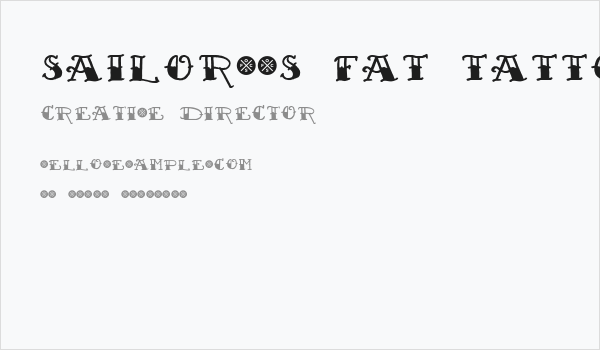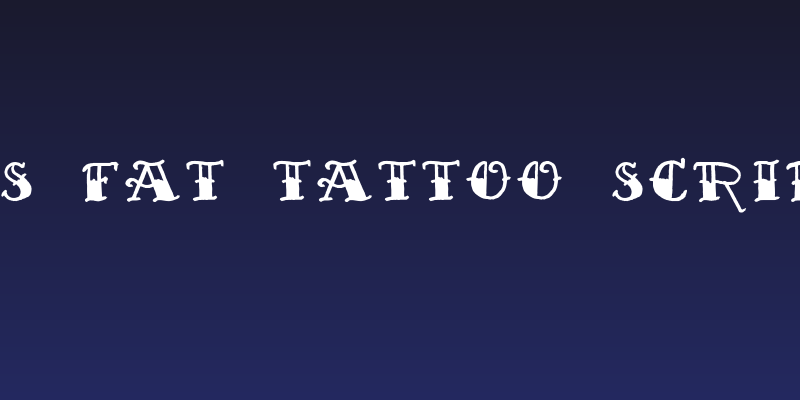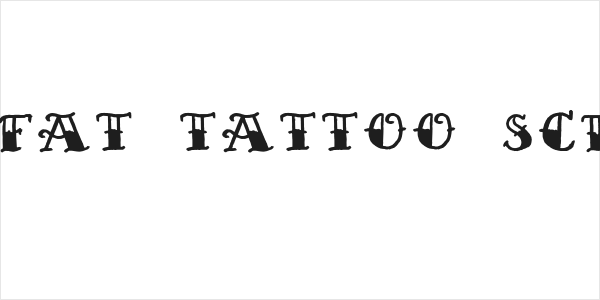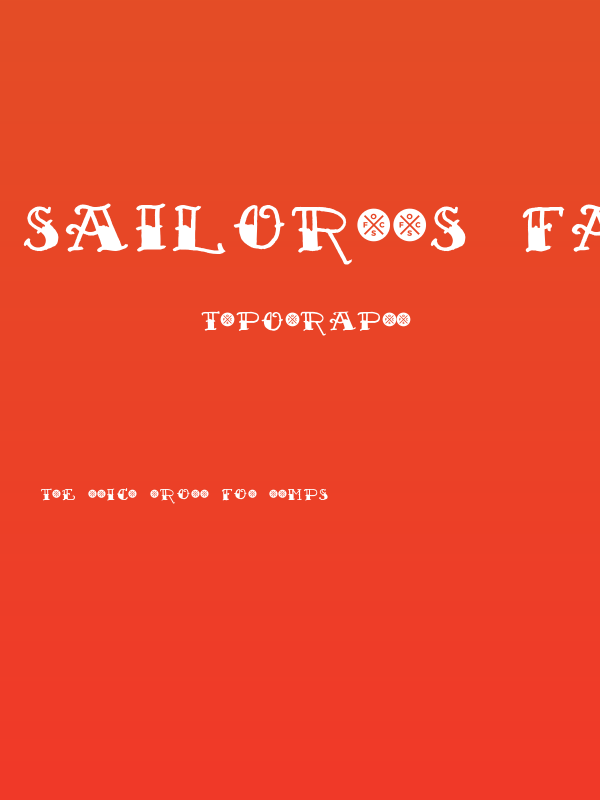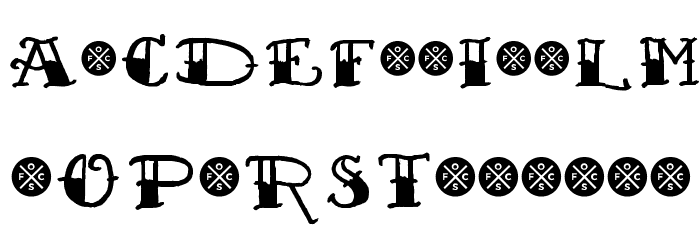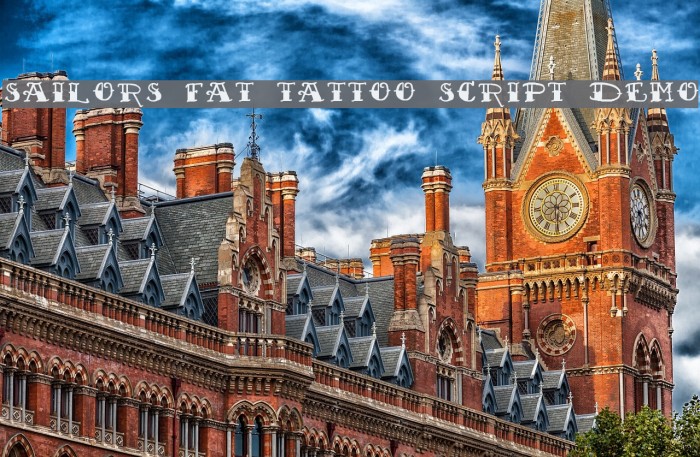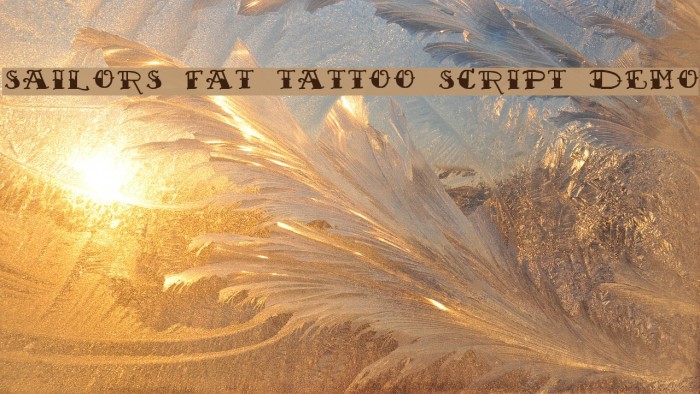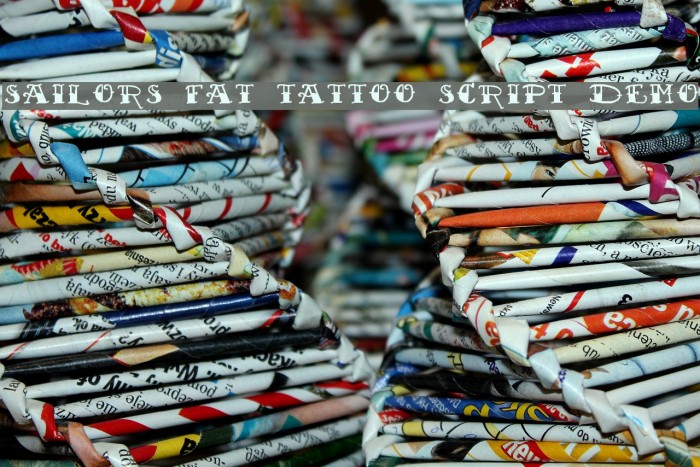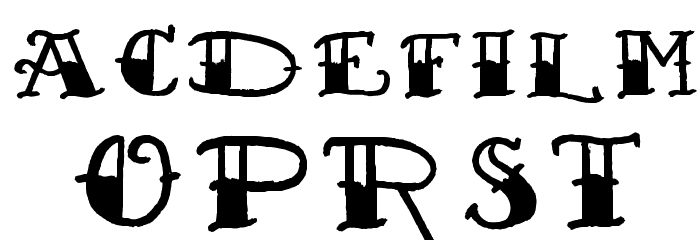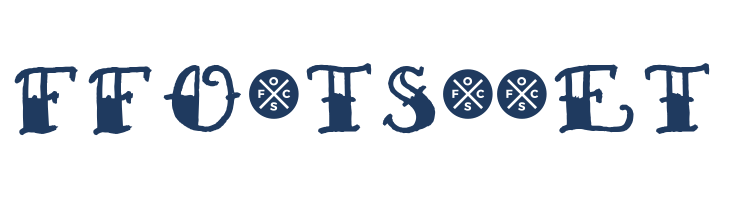
Sailor's Fat Tattoo Script Demo Font
This font features a bold and decorative style with a distinct vintage tattoo aesthetic. The characters are embellished with unique flourishes and intricate details, reminiscent of traditional sailor tattoos. The uppercase letters are particularly ornate, with some characters incorporating anchor-like elements and curved strokes. The overall appearance is striking and eye-catching, making it suitable for designs that require a strong visual impact. The font's decorative nature lends itself well to creative and artistic projects.
| Proposed Projects | Ideal for tattoo designs, vintage posters, nautical-themed graphics, and creative branding. |